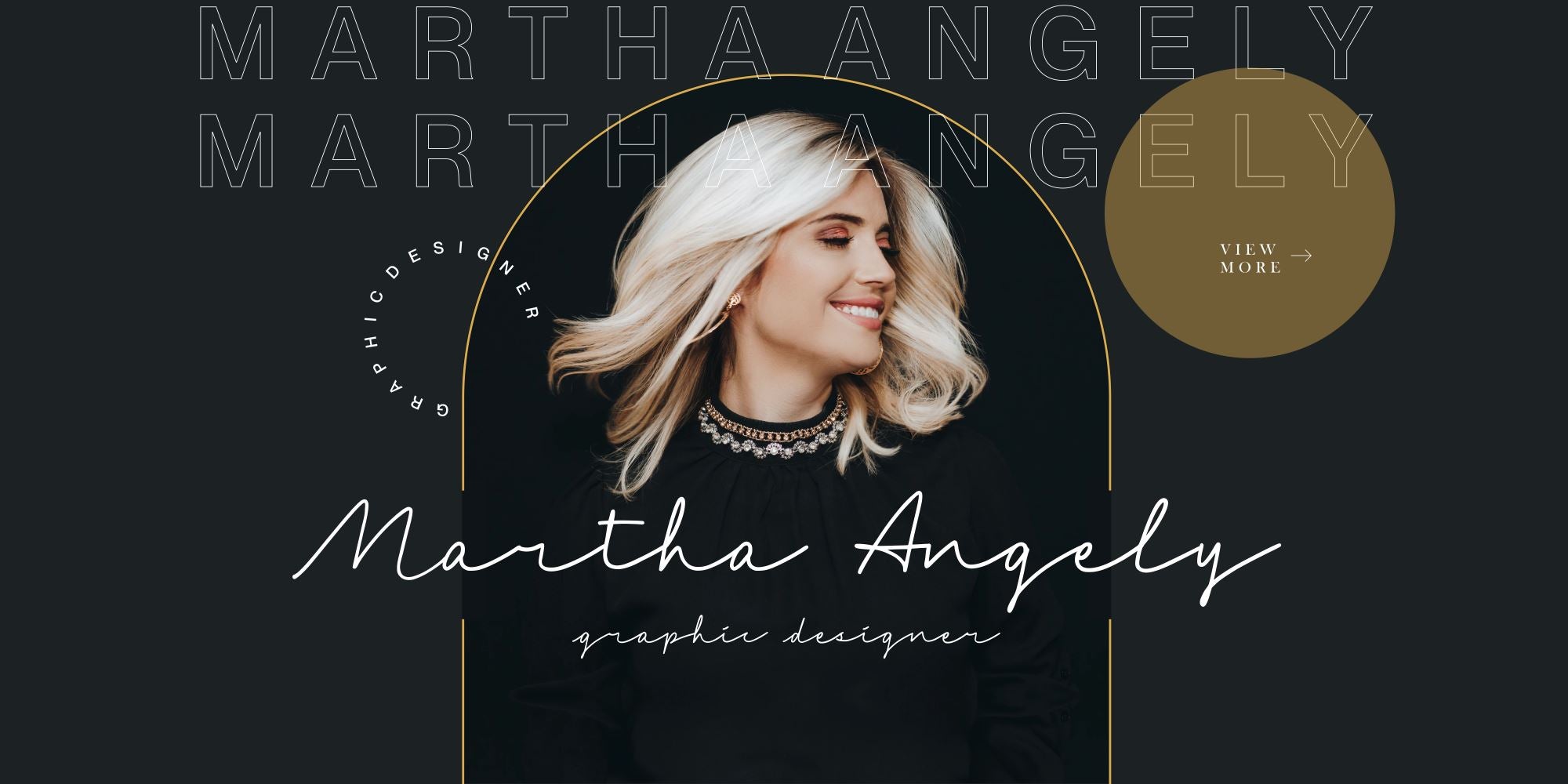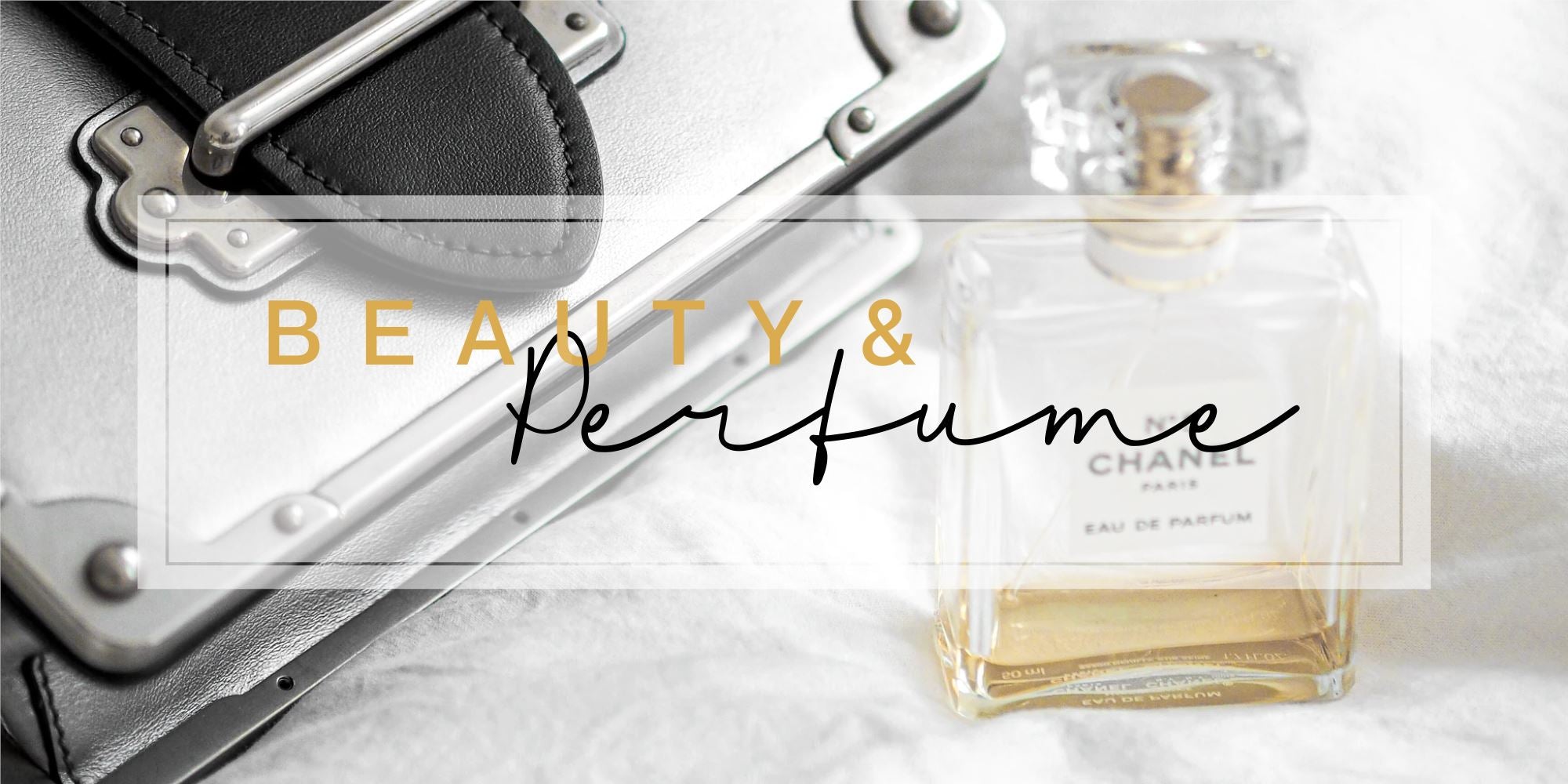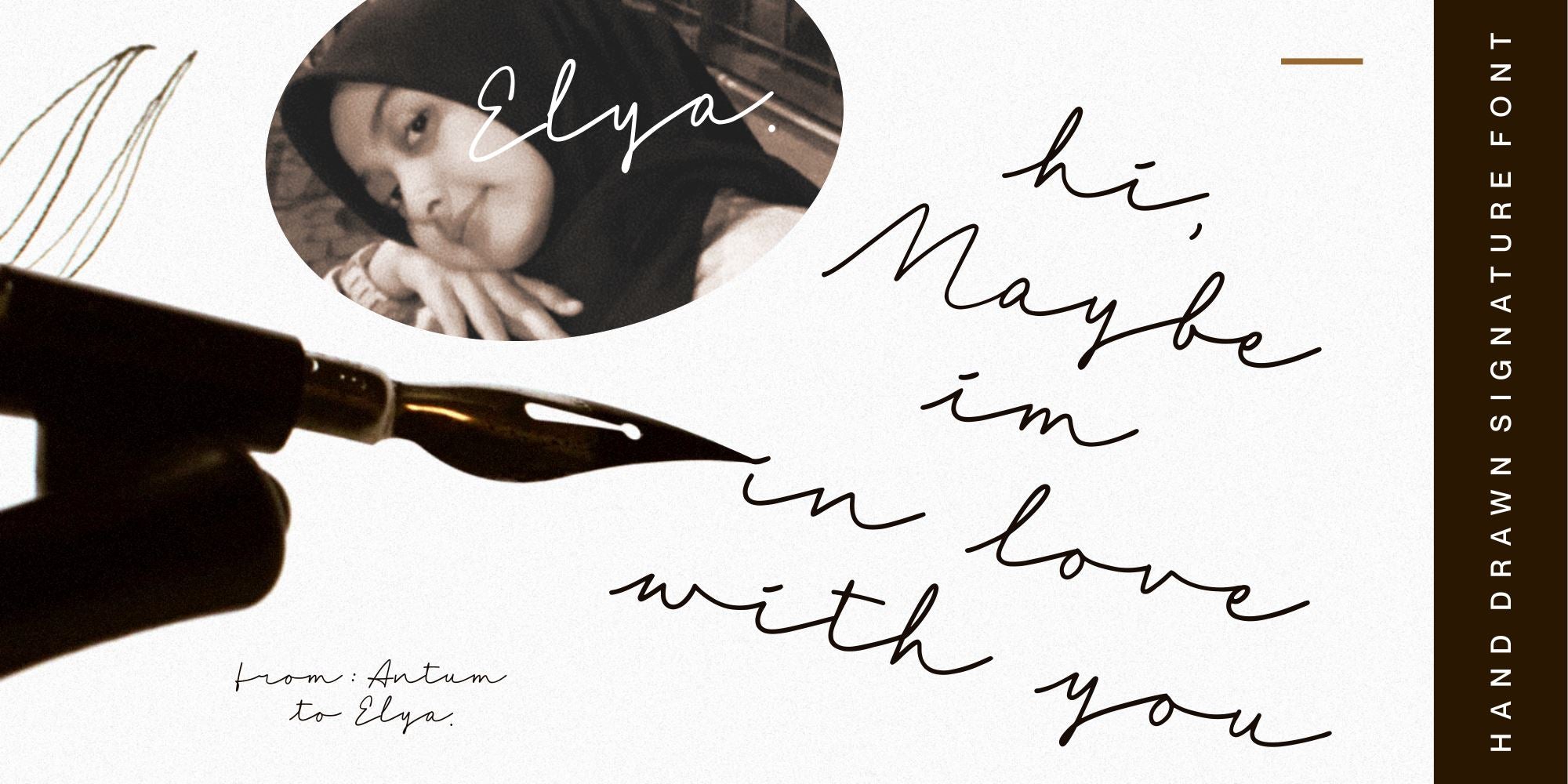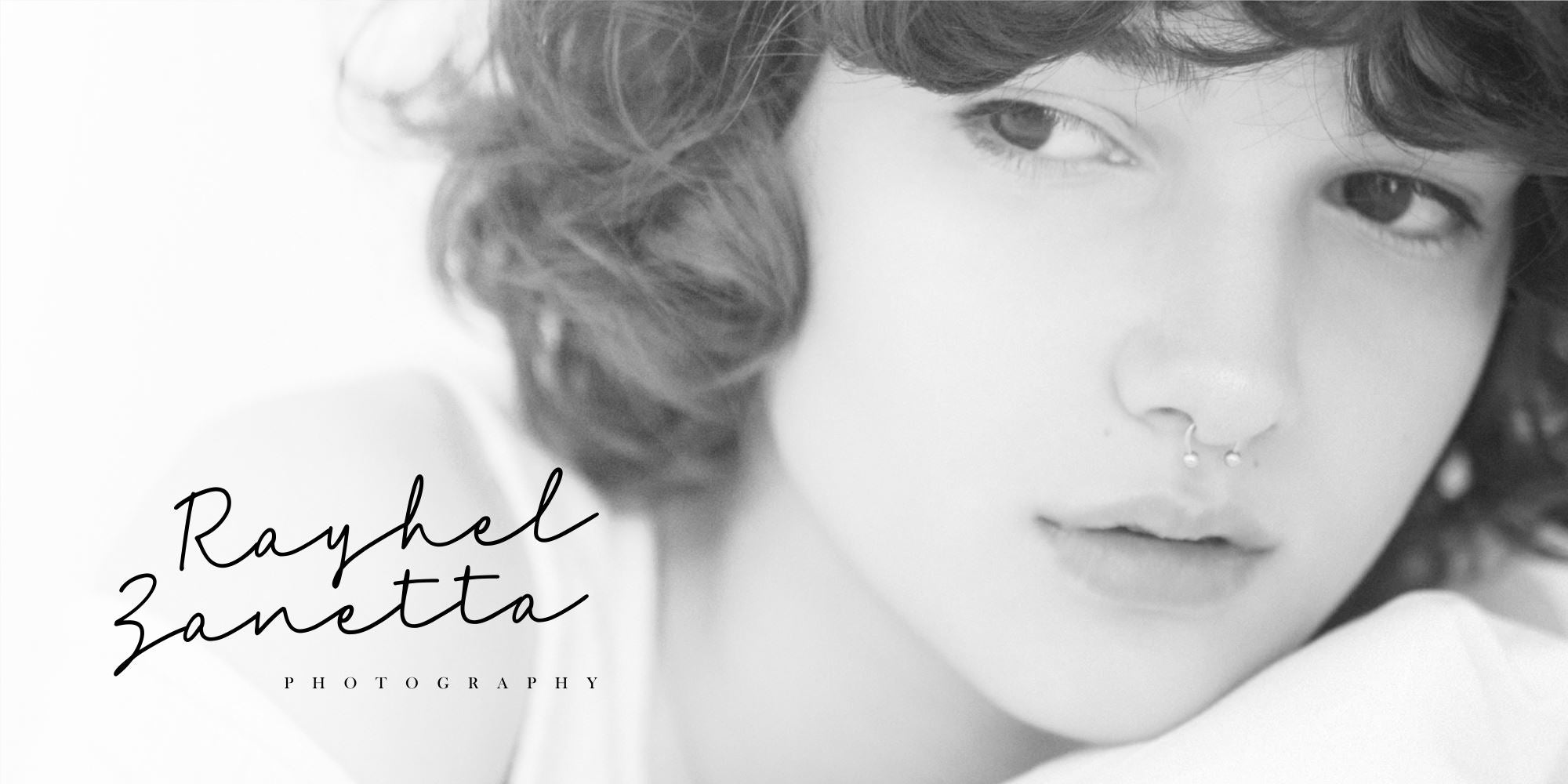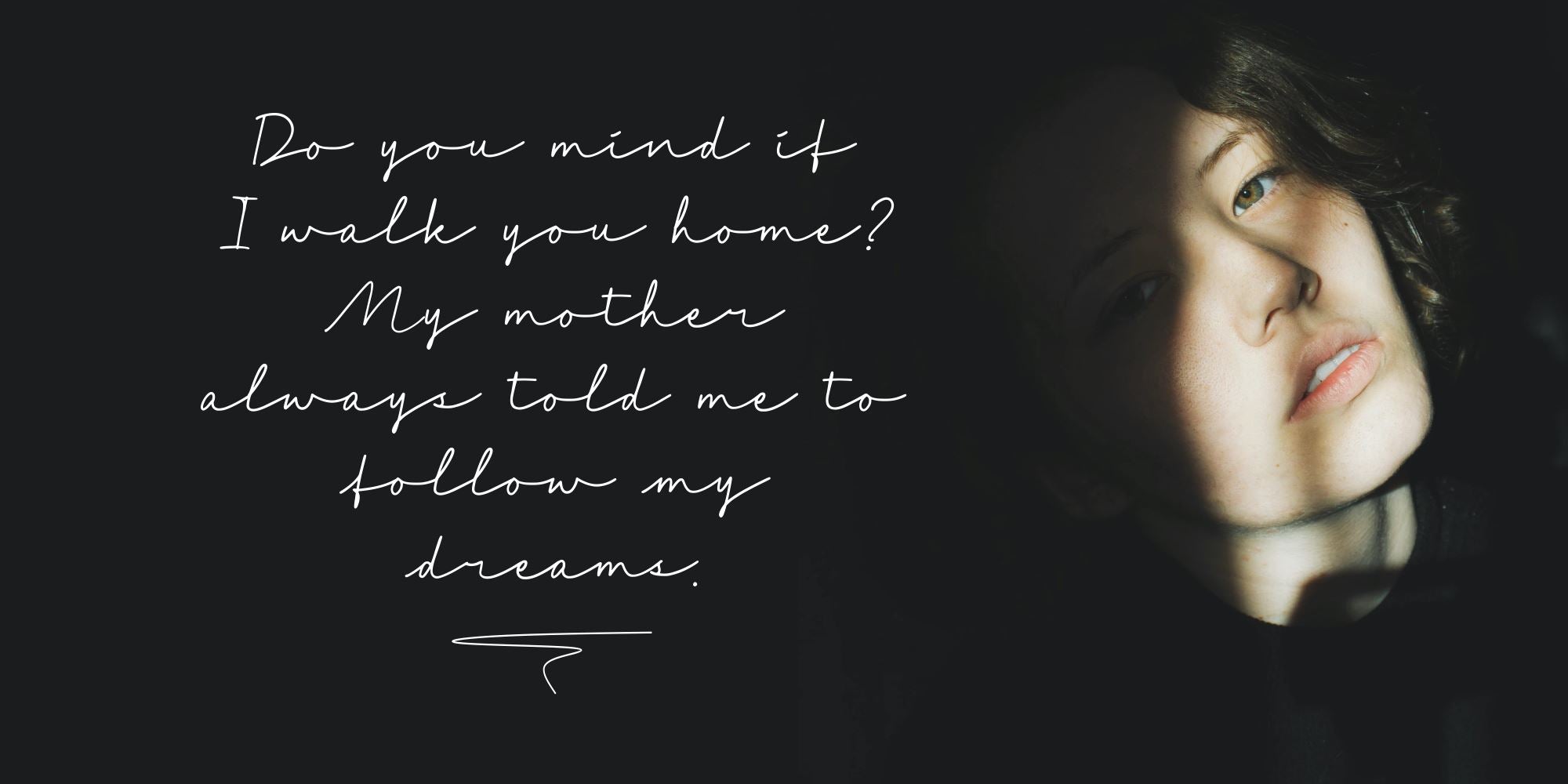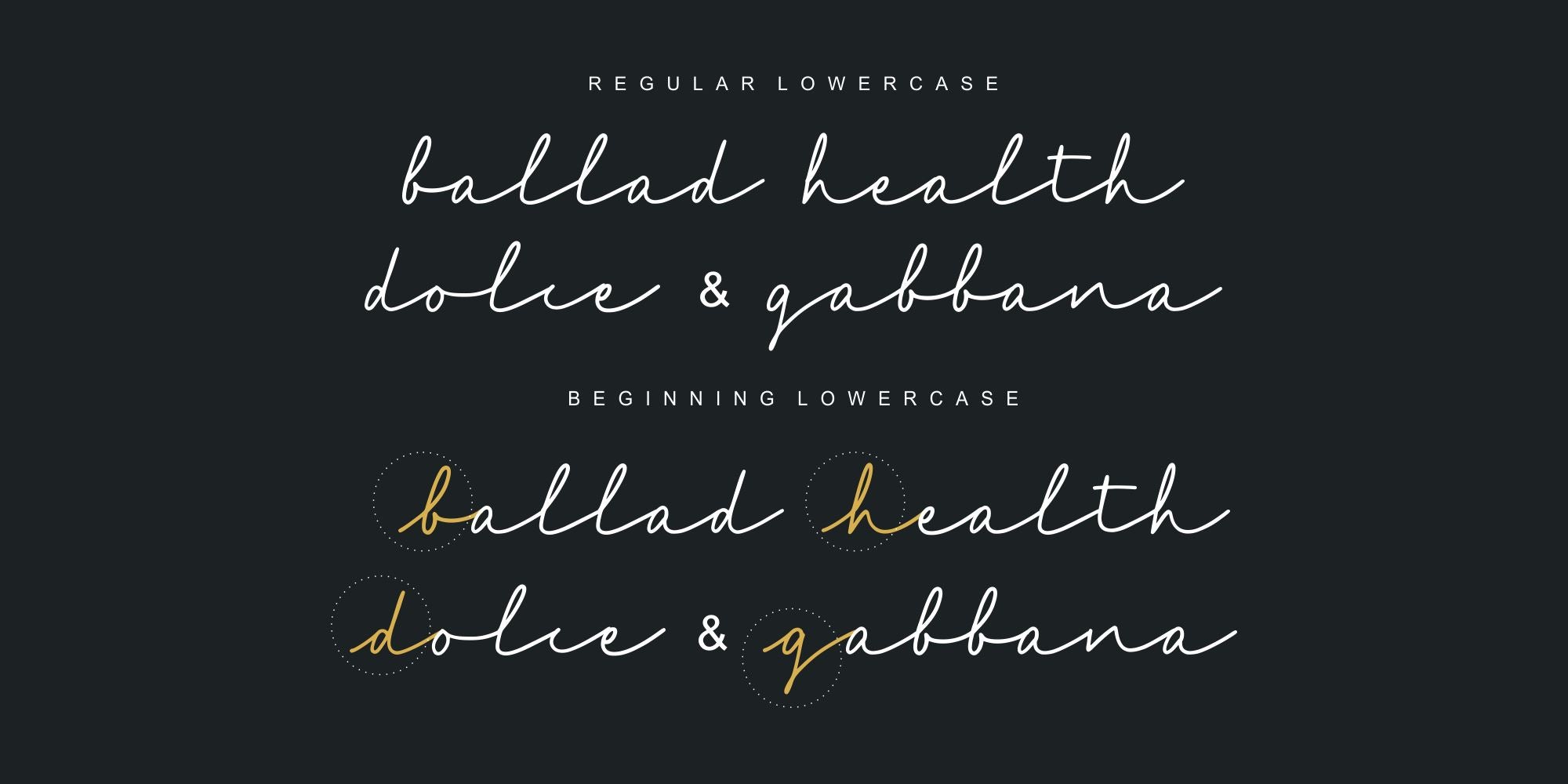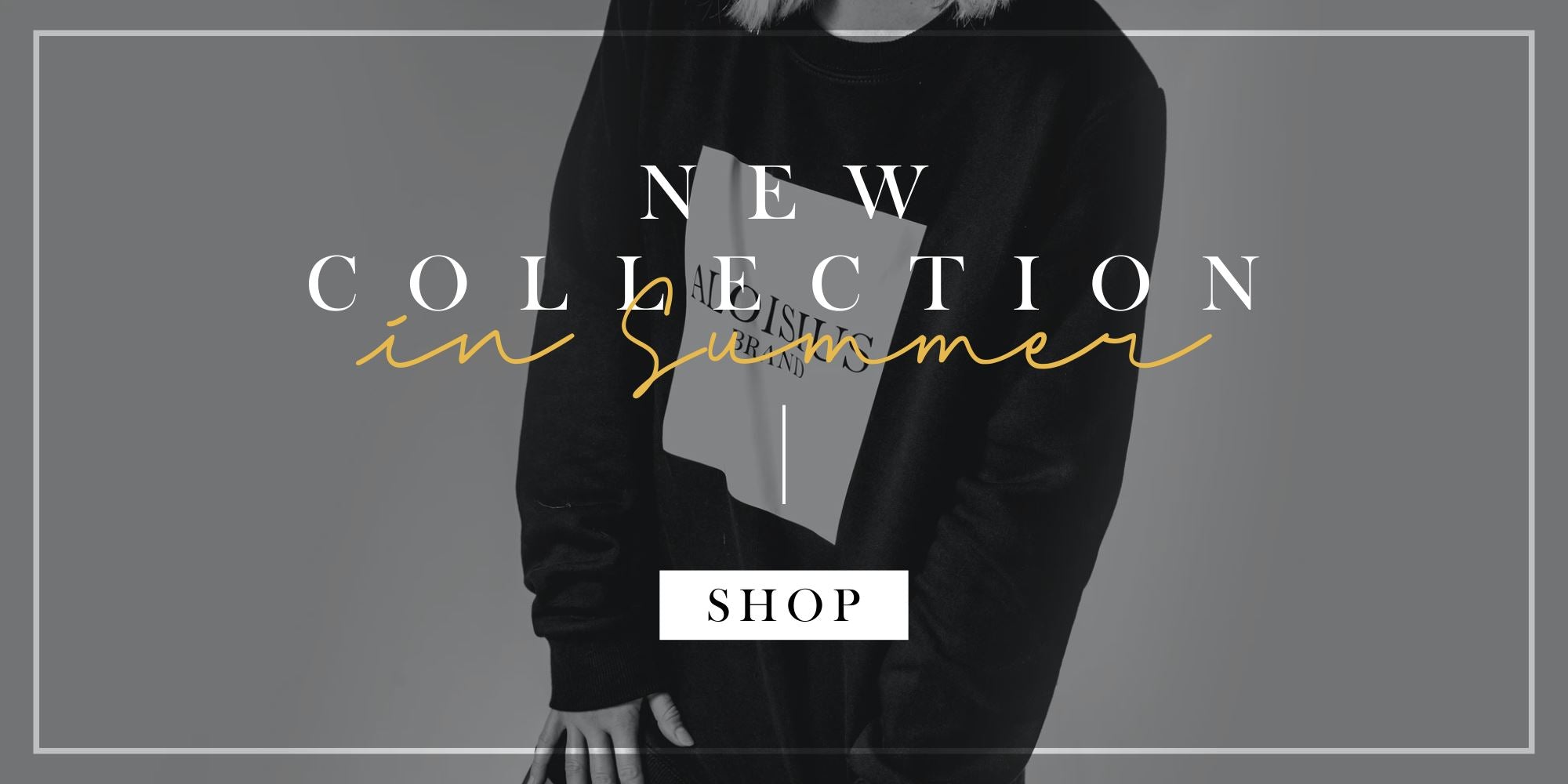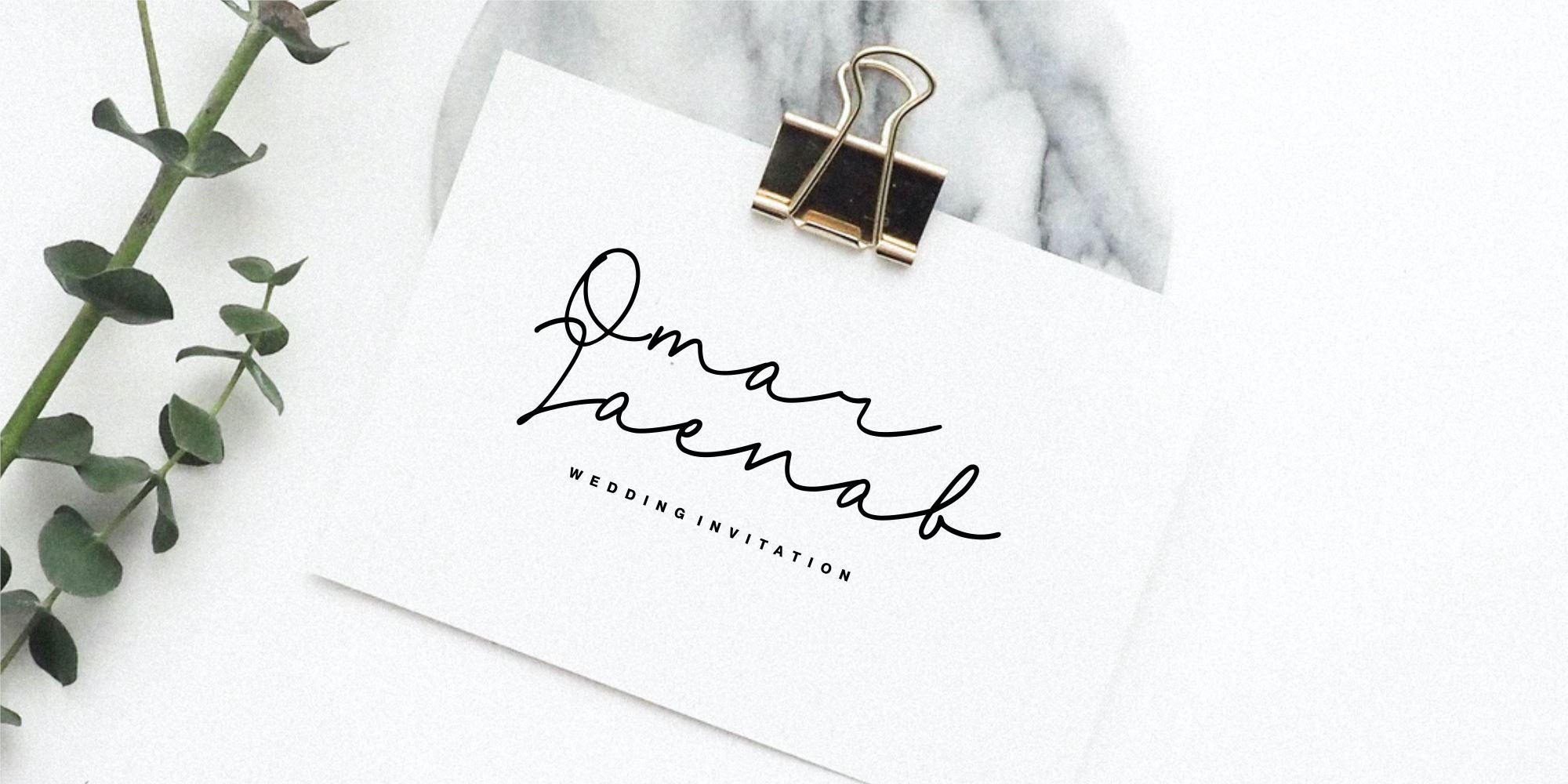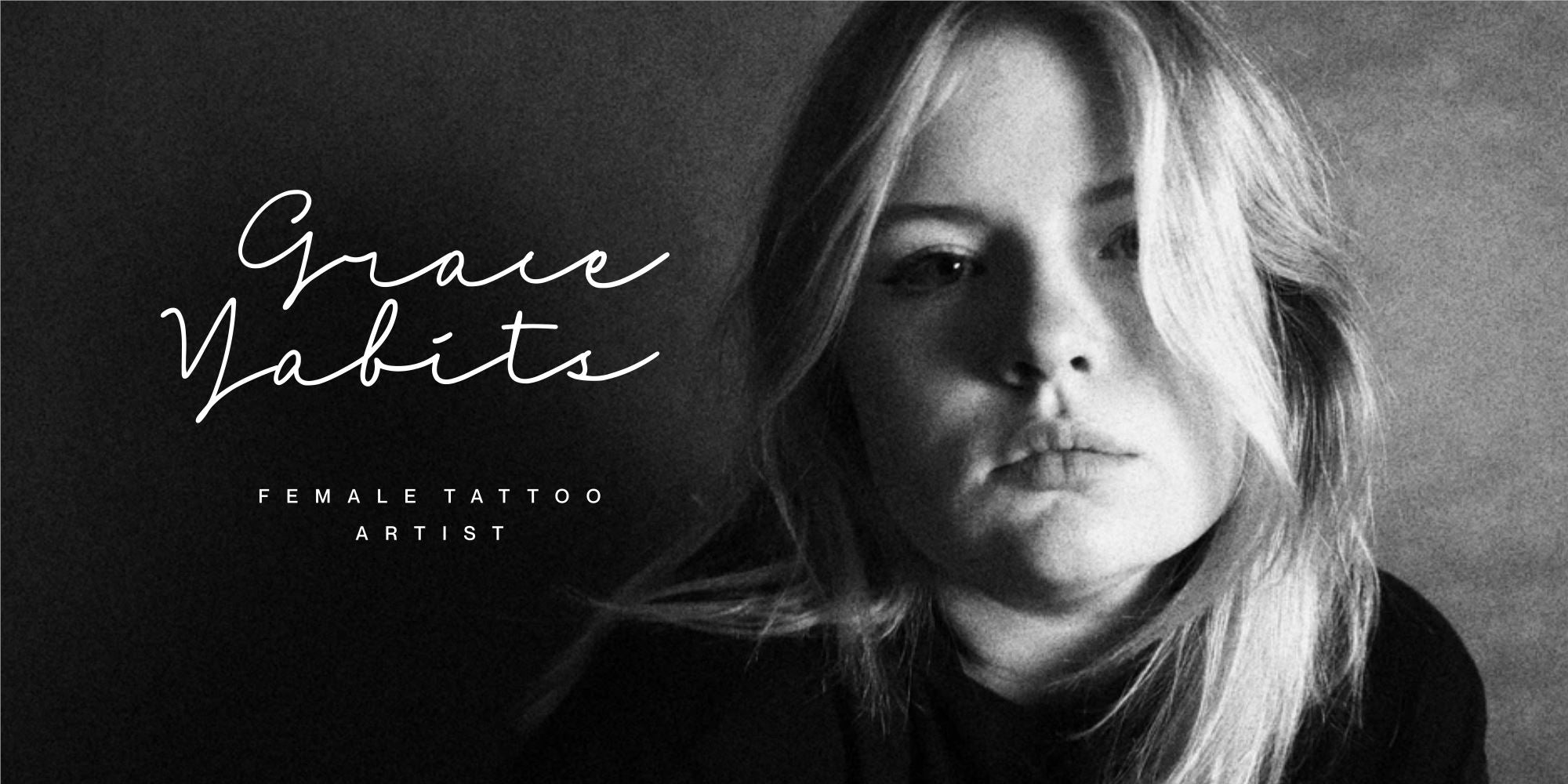
The Goblick
About The Goblick
Proudly Presenting, The Goblick a Handdrawn Signature Font. The Goblick is perfect for any titles, logo, product packaging, branding project, megazine, social media, wedding, or just used to express words above the background. The Goblick also come with Multi-Lingual Support. Enjoy the font, feel free to comment or feedback, send me PM or email. Thsnk You!